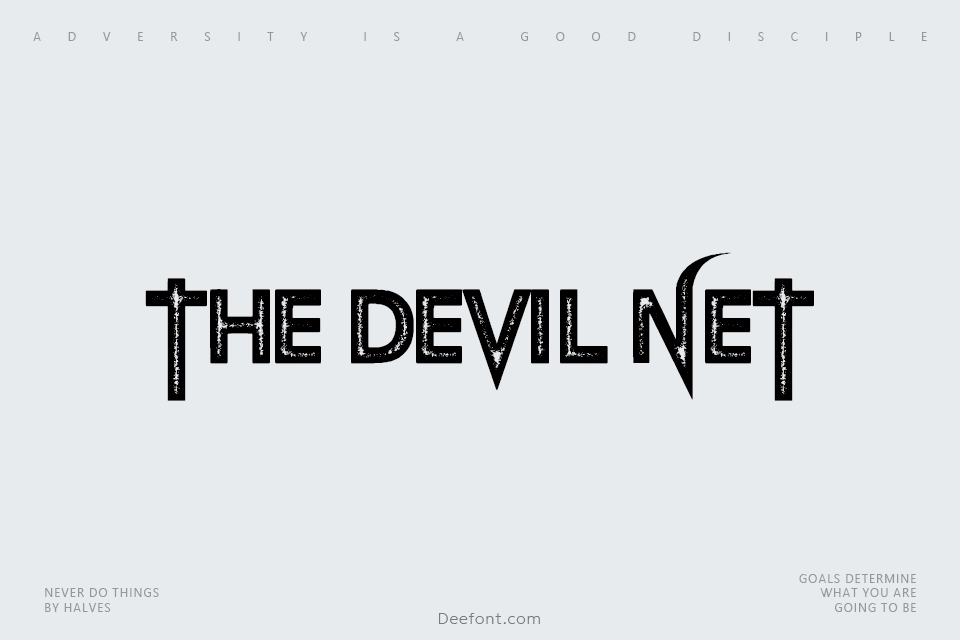
The Devil Net Font
The Devil Net is a distinctive distressed and eroded typeface that brings a bold, edgy aesthetic to any design project. With its heavily textured appearance and worn character style, this font excels in creating eye-catching headlines, posters, and decorative elements. Originally designed by Font Monger and released in 2017, it has gained popularity for its unique irregular letterforms that convey a grungy, rebellious spirit perfect for alternative and underground design applications.